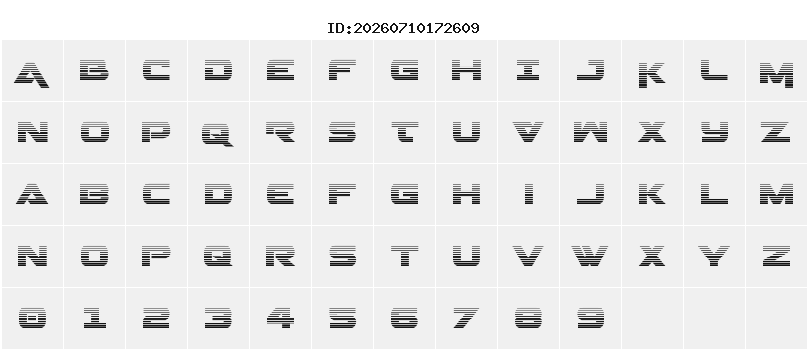
Gemina Gradient Preview
• Font Name: Gemina Gradient
• Full Font Name: Gemina Gradient
About Gemina Gradient.ttf
Gemina Gradient.ttf is a modern, elegant sans-serif font designed for ultimate readability and visual harmony. Perfect for branding, headlines, web design, and print materials.